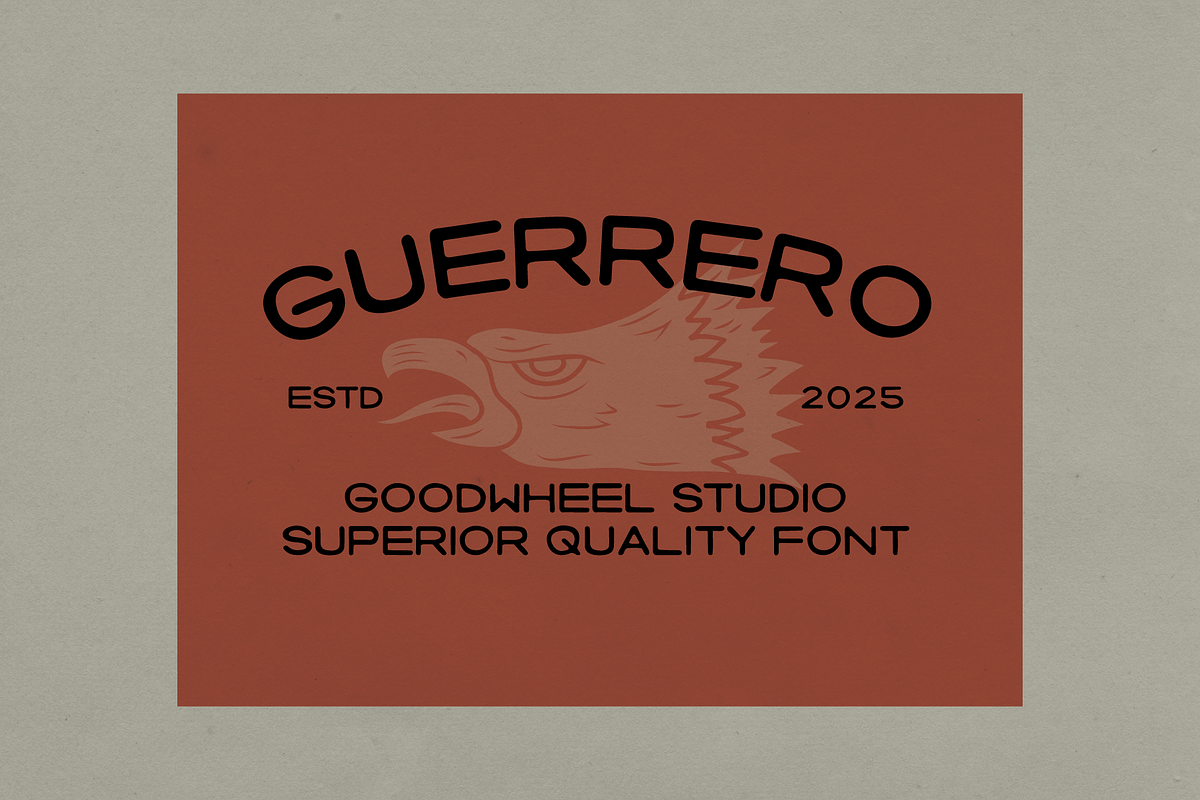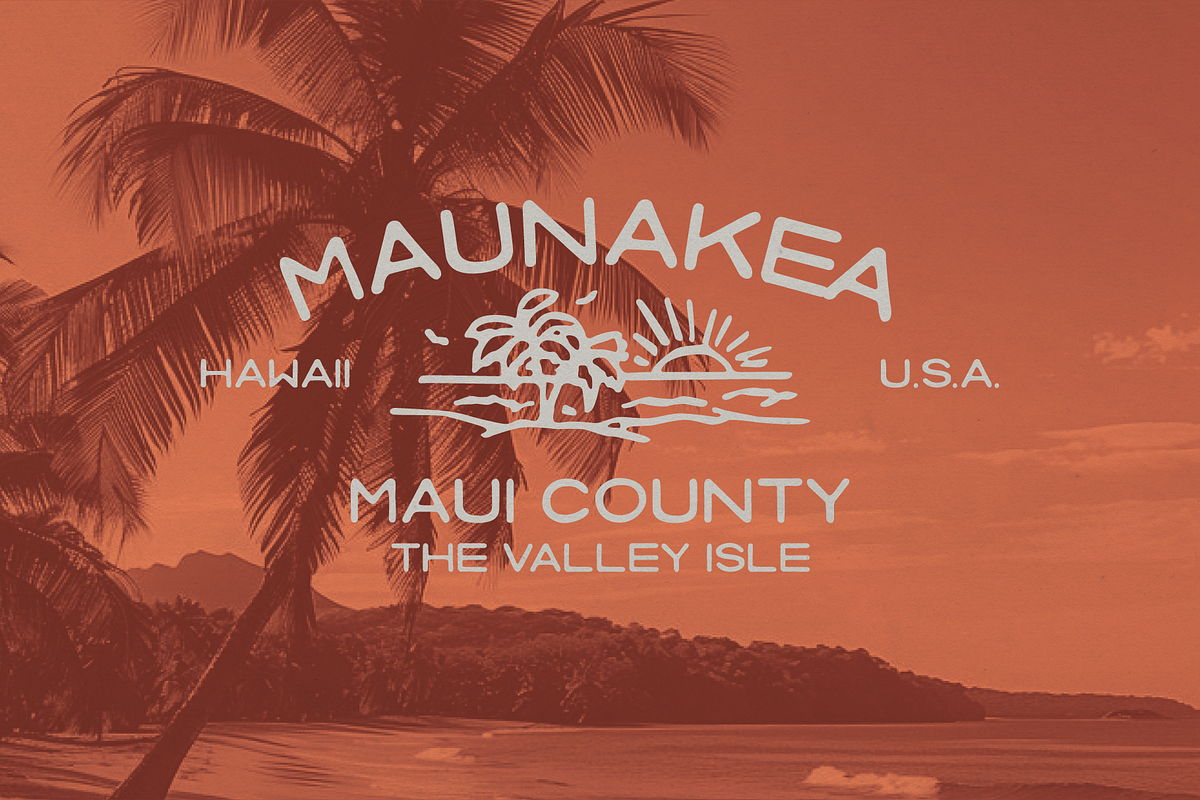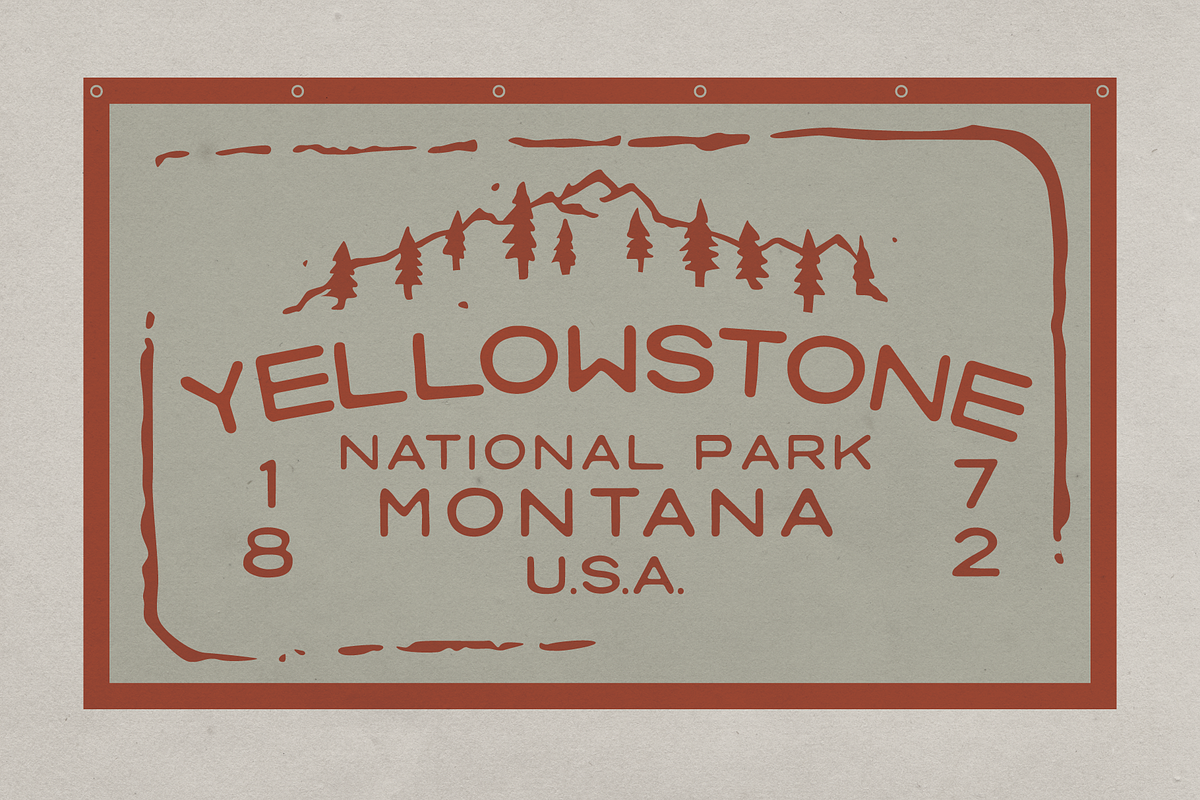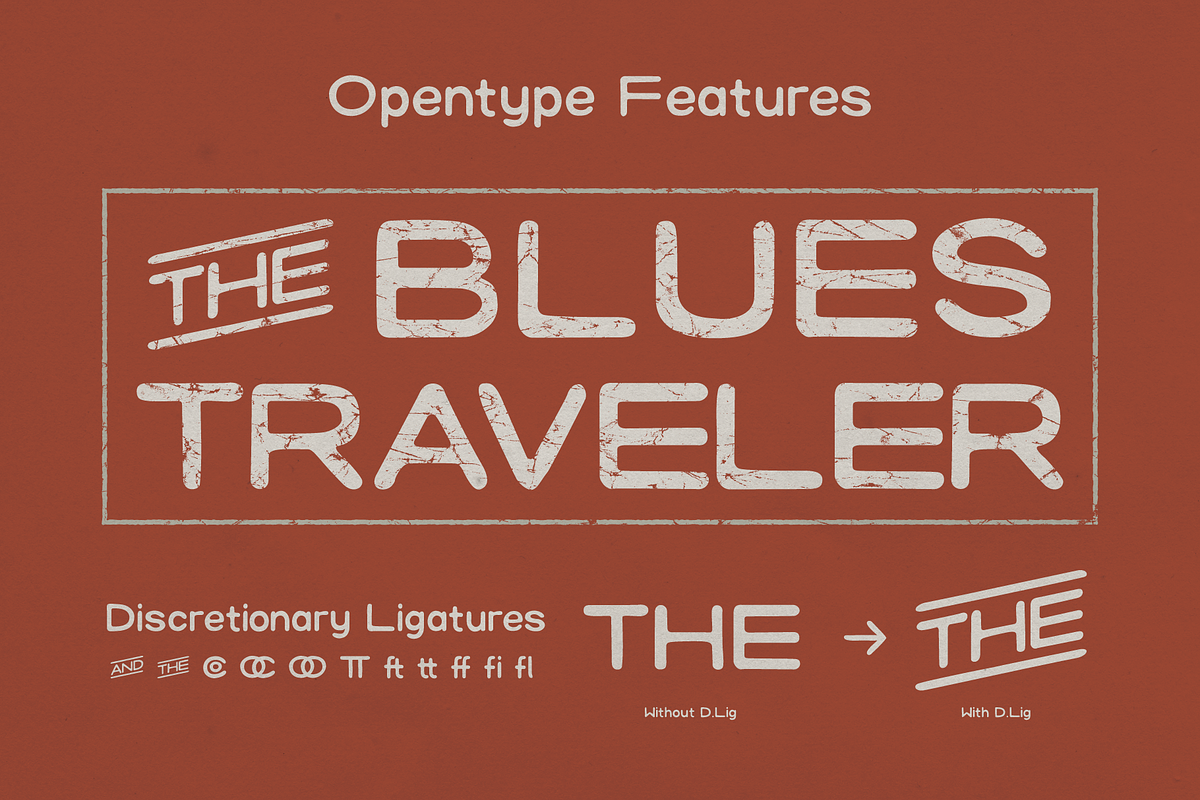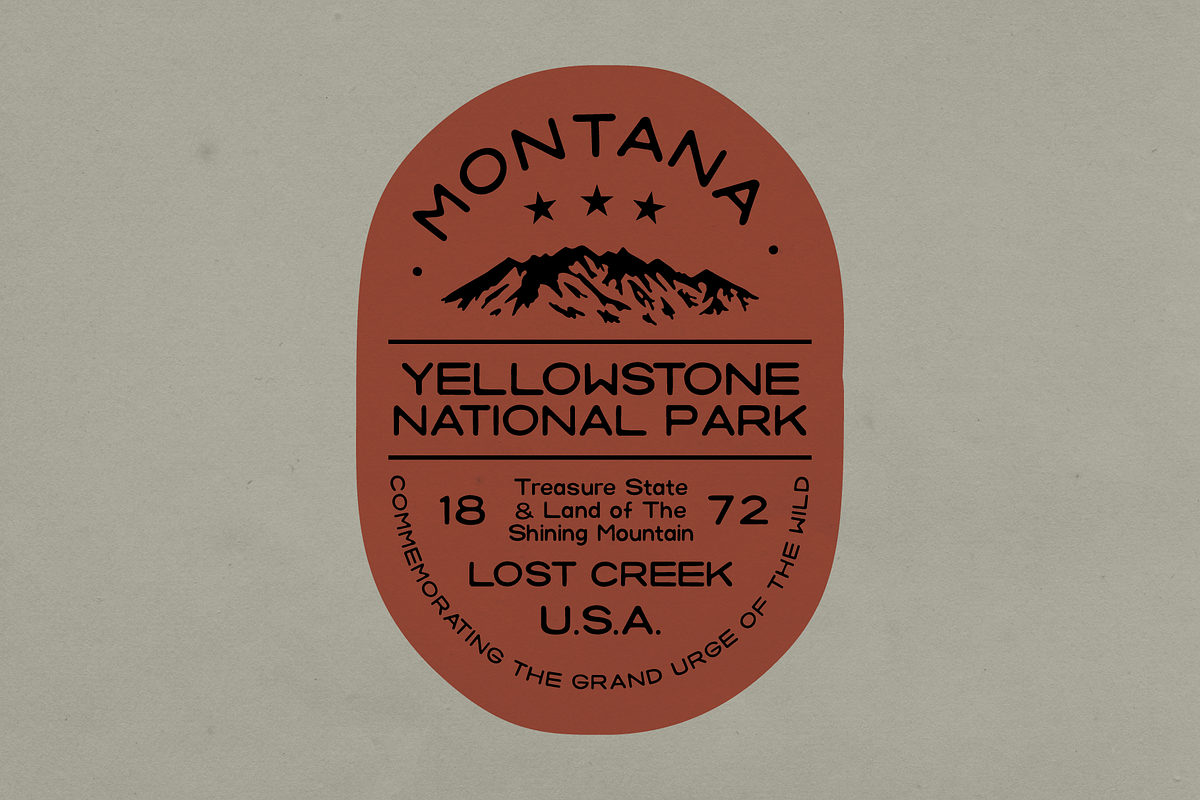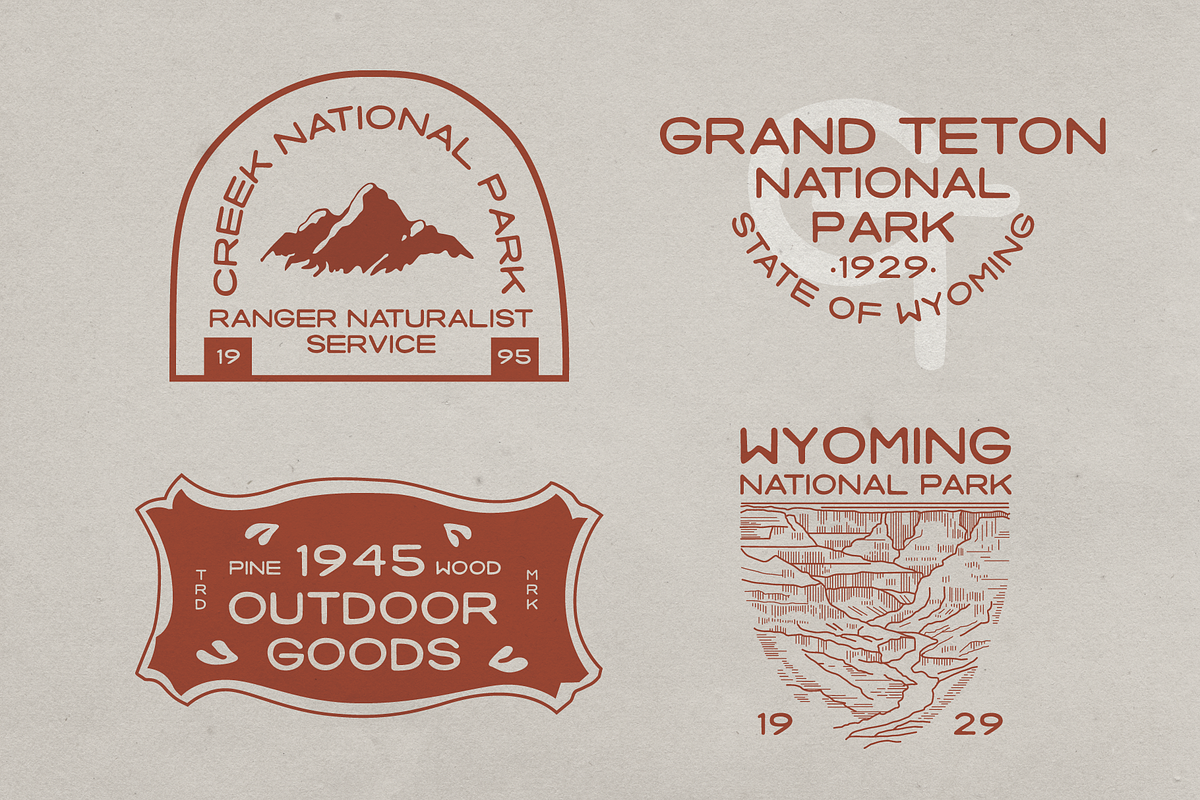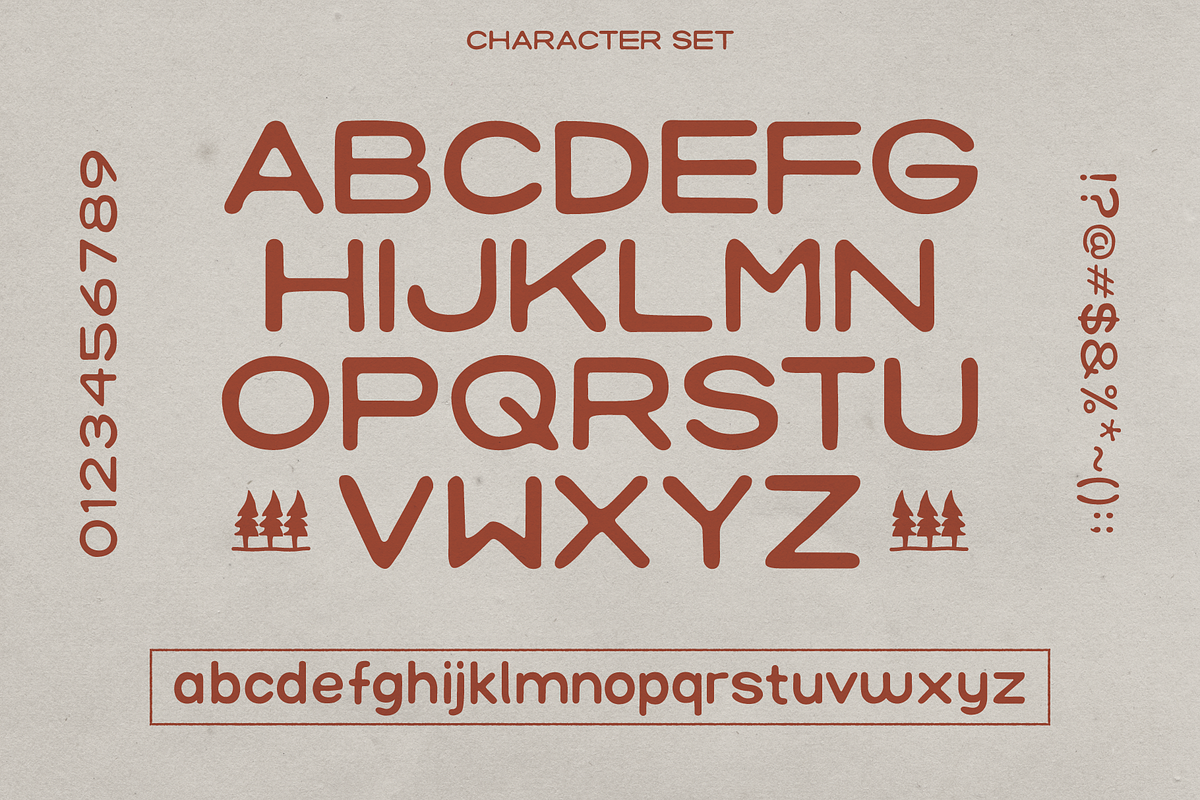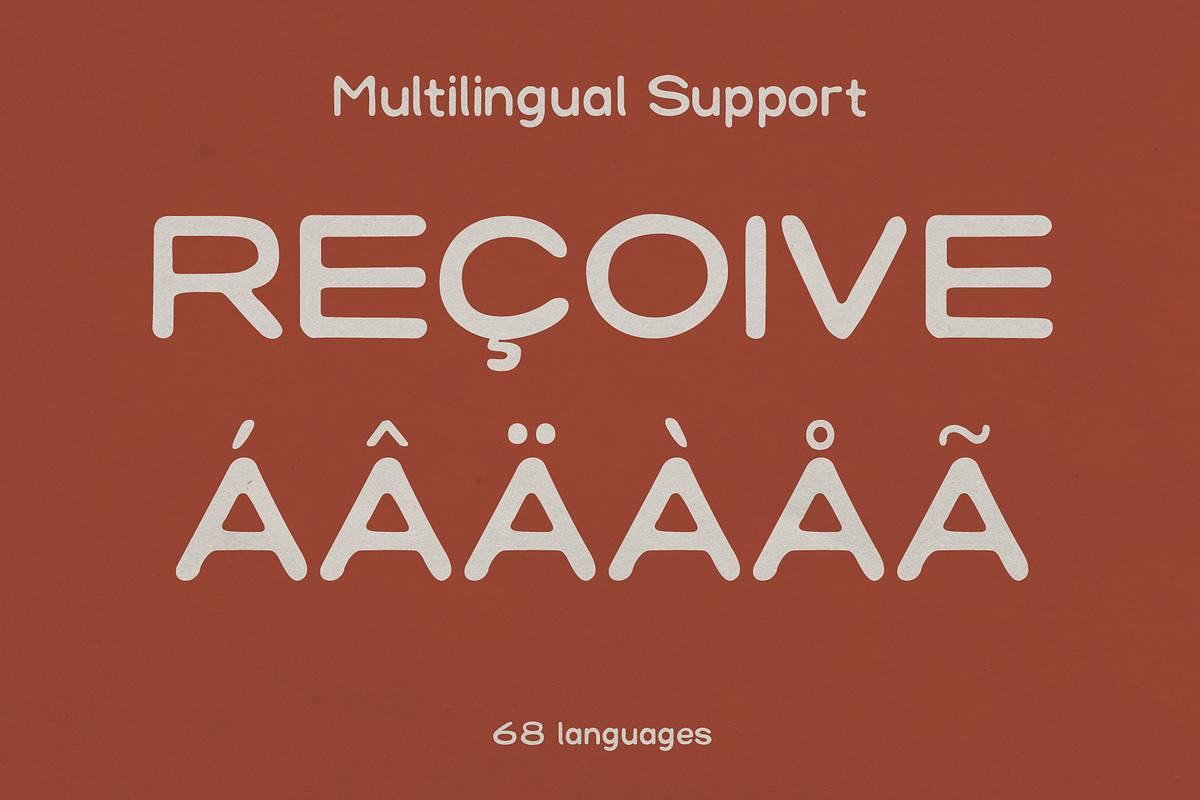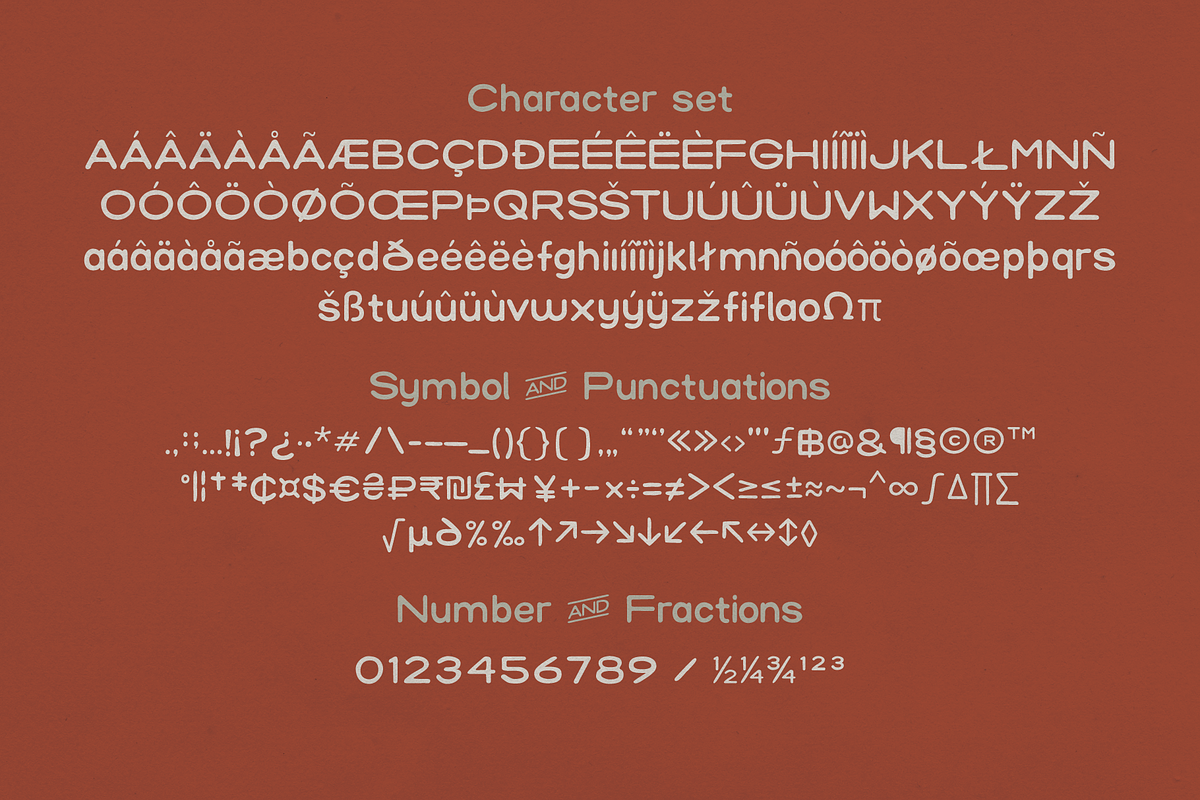
GW Guerrero
GW Guerrero is Hand drawn sans serif display typeface with Editable template & Graphic Asset Extras.
Opentype Feature : Dicretionary Ligatures